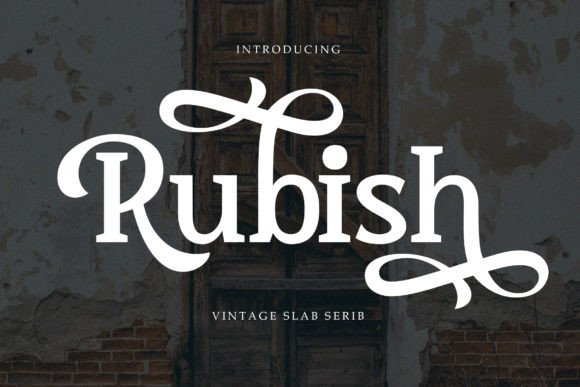
Introducing Rubish Font, the perfect choice for creating captivating and eye-catching designs! Designed by the talented meizzalunadesign, this elegant and rounded slab serif typeface is specifically crafted to elevate your creative projects to new heights.
Rubish Font is a versatile and adaptable font that truly shines in various contexts. Whether you're designing labels for perfumes, cosmetics, magazine covers, posters, manifests, flyers, social posts, or fashion-related content, this font will effortlessly enhance your visuals and leave a lasting impression on your audience.
With its classic and timeless appeal, Rubish Font is the ideal choice for retro logos. It adds a touch of nostalgia and vintage charm, making your brand stand out from the crowd. The carefully crafted curves and smooth lines of this slab serif font create a sense of elegance and sophistication, instantly drawing the viewer's attention.
But what truly sets Rubish Font apart is its ability to evoke emotions and captivate your target audience. Its unique character and personality make it a must-have for any designer looking to make a statement. The bold yet refined nature of this font will make your designs memorable and unforgettable.
Don't miss out on the opportunity to add a touch of elegance and retro charm to your designs. Rubish Font is the perfect companion for any creative endeavor. Get ready to impress and leave a lasting impact with this remarkable font!